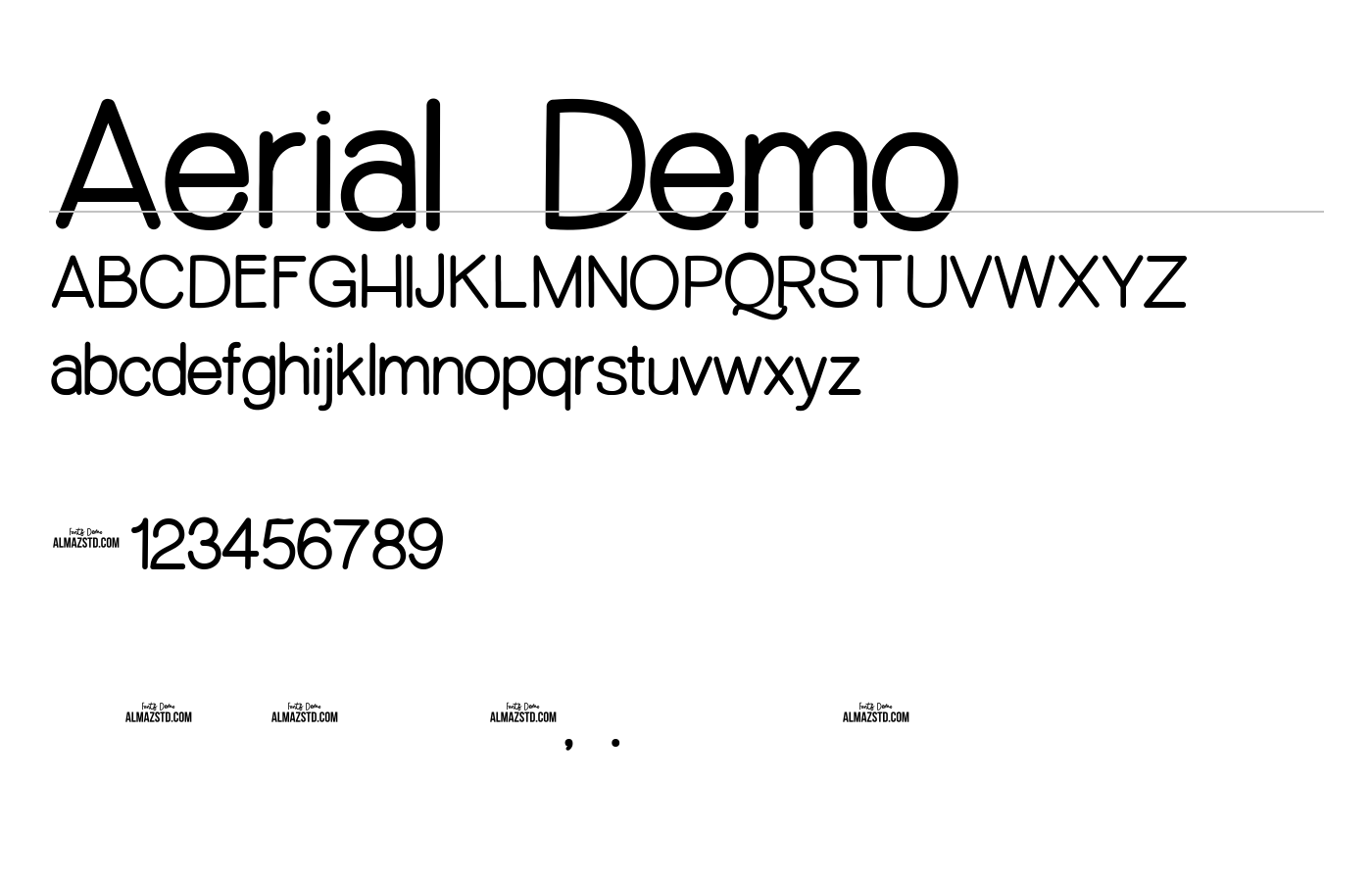
Aerial_Demo is a clean, modern sans serif font with a light to regular weight and a slightly condensed width. Its tall x-height and minimal stroke contrast give it a friendly, approachable feel, while unique details like the curved tail on the Q and single-story a add subtle character. This font is ideal for contemporary branding, editorial headings, and web use where clarity and a touch of personality are important.
Aerial_Demo Font
About Aerial_Demo Font